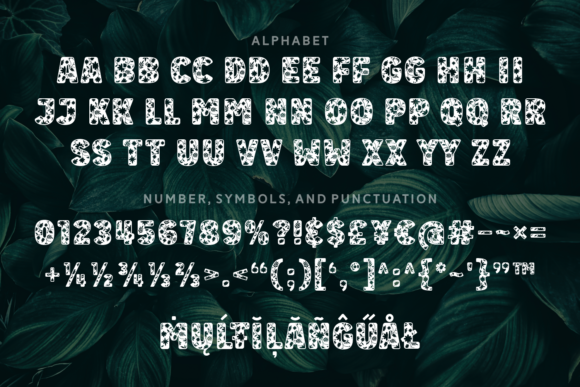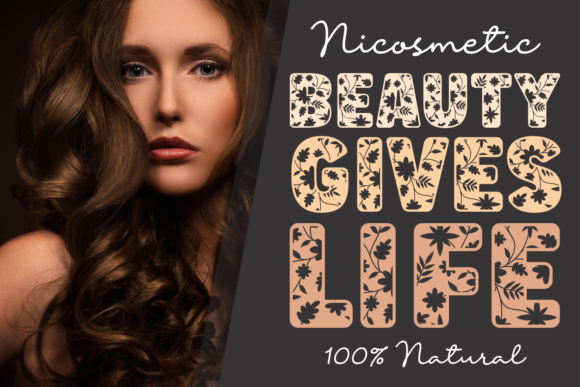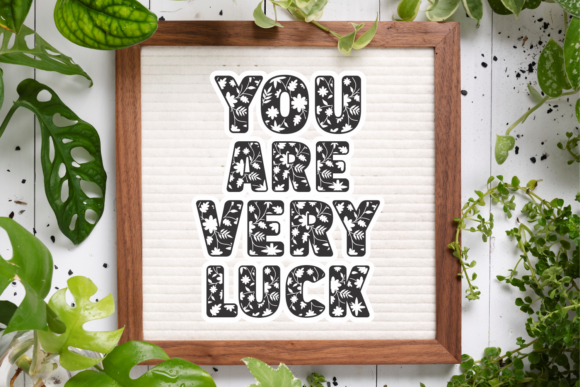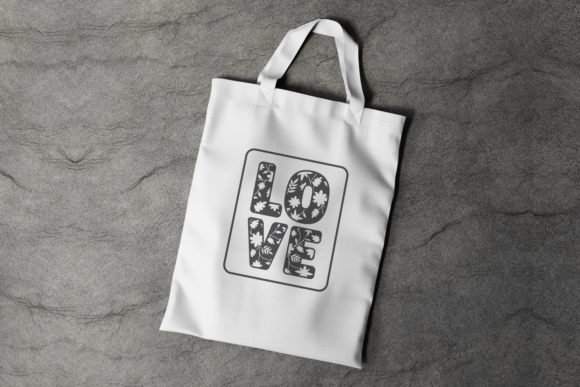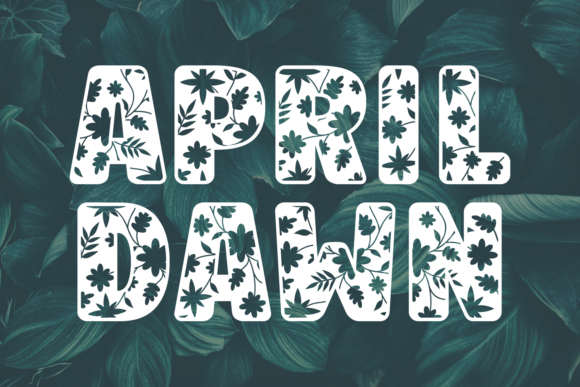
Introducing April Dawn Font: A Sweet Decorative Font for Nature-Inspired Projects
Are you a designer or crafter looking for a font that captures the essence of nature and ecology? Look no further than April Dawn Font, a sweet decorative font that’s perfect for a wide range of projects. In this article, we’ll take a closer look at the features and benefits of April Dawn Font, and explore how it can be used to add a touch of natural beauty to your designs.
What is April Dawn Font?
April Dawn Font is a decorative font that’s inspired by the natural world. Its unique and elegant design makes it perfect for projects connected with nature, ecology, and sustainability. The font features a range of characters, including uppercase and lowercase letters, numbers, and punctuation marks, all of which are designed to work together to create a cohesive and visually appealing look.
Key Features of April Dawn Font
So, what makes April Dawn Font so special? Here are just a few of its key features:
- Sweet and feminine design: April Dawn Font has a delicate, whimsical feel that’s perfect for projects that require a touch of elegance and sophistication.
- Nature-inspired: The font’s design is inspired by the natural world, making it perfect for projects connected with nature, ecology, and sustainability.
- High-quality characters: The font features a range of high-quality characters, including uppercase and lowercase letters, numbers, and punctuation marks.
- Easy to read: Despite its decorative nature, April Dawn Font is easy to read, making it perfect for use in a wide range of projects, from titles and headings to body text.
How to Use April Dawn Font
April Dawn Font is a versatile font that can be used in a wide range of projects, including:
- Branding and packaging: Use April Dawn Font to create beautiful, nature-inspired branding and packaging for your products.
- Stationery and invitations: Add a touch of elegance and sophistication to your stationery and invitations with April Dawn Font.
- Web design: Use April Dawn Font to create beautiful, nature-inspired web designs that showcase your brand’s personality.
- Crafting and DIY projects: April Dawn Font is perfect for crafters and DIY enthusiasts who want to add a personal touch to their projects.
Tips for Getting the Most Out of April Dawn Font
Here are a few tips for getting the most out of April Dawn Font:
- Use it sparingly: April Dawn Font is a decorative font, so it’s best to use it sparingly to add emphasis and interest to your designs.
- Experiment with different sizes and colors: Try out different sizes and colors to see what works best for your project.
- Pair it with other fonts: April Dawn Font looks great when paired with other fonts, so don’t be afraid to experiment with different combinations.
April Dawn Font is a beautiful, sweet decorative font that’s perfect for any project connected with nature and ecology. Its unique and elegant design makes it a great choice for designers and crafters who want to add a touch of natural beauty to their work. With its high-quality characters, ease of use, and versatility, April Dawn Font is a font that’s sure to become a favorite in your design arsenal.